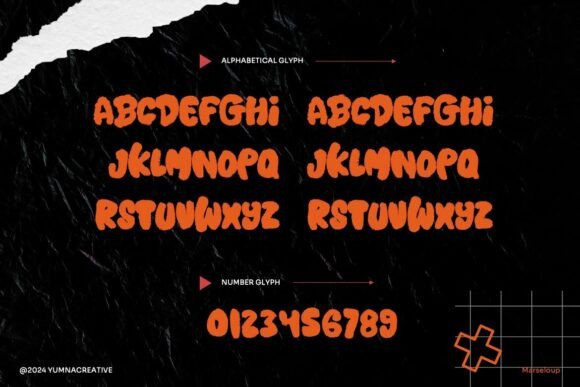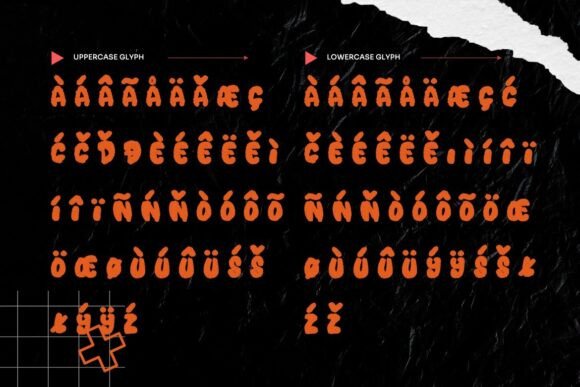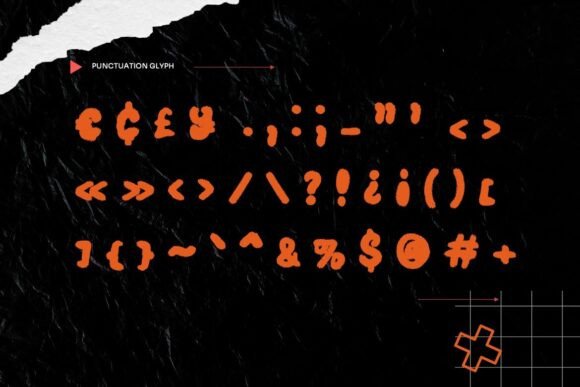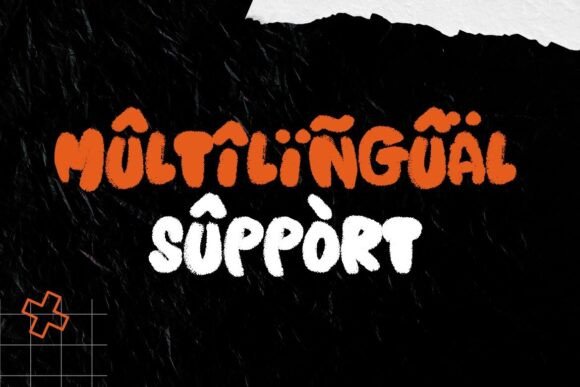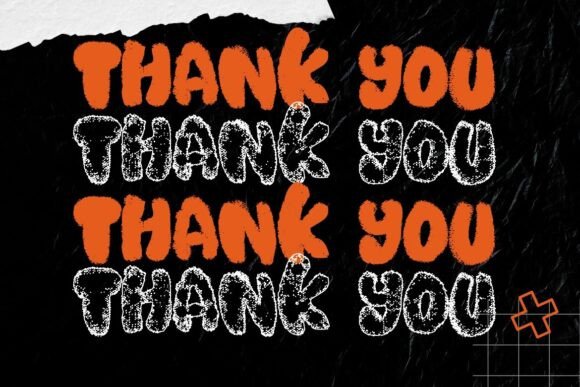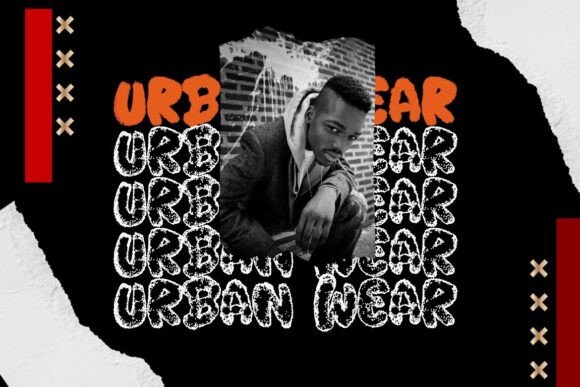
Introduction to Marseloup Font
Marseloup – Graffiti Brush is a creative digital tool designed to mimic the bold, expressive style of graffiti.
It features a brush that gives your artwork an urban, street-art feel, perfect for creating graffiti-like designs with ease .
Key Features of Marseloup Font
Why Choose Marseloup Font?
Marseloup Font offers exceptional quality and versatility, making it a valuable addition to your design toolkit. Whether you’re creating for personal projects or commercial use, Marseloup Font delivers professional results.